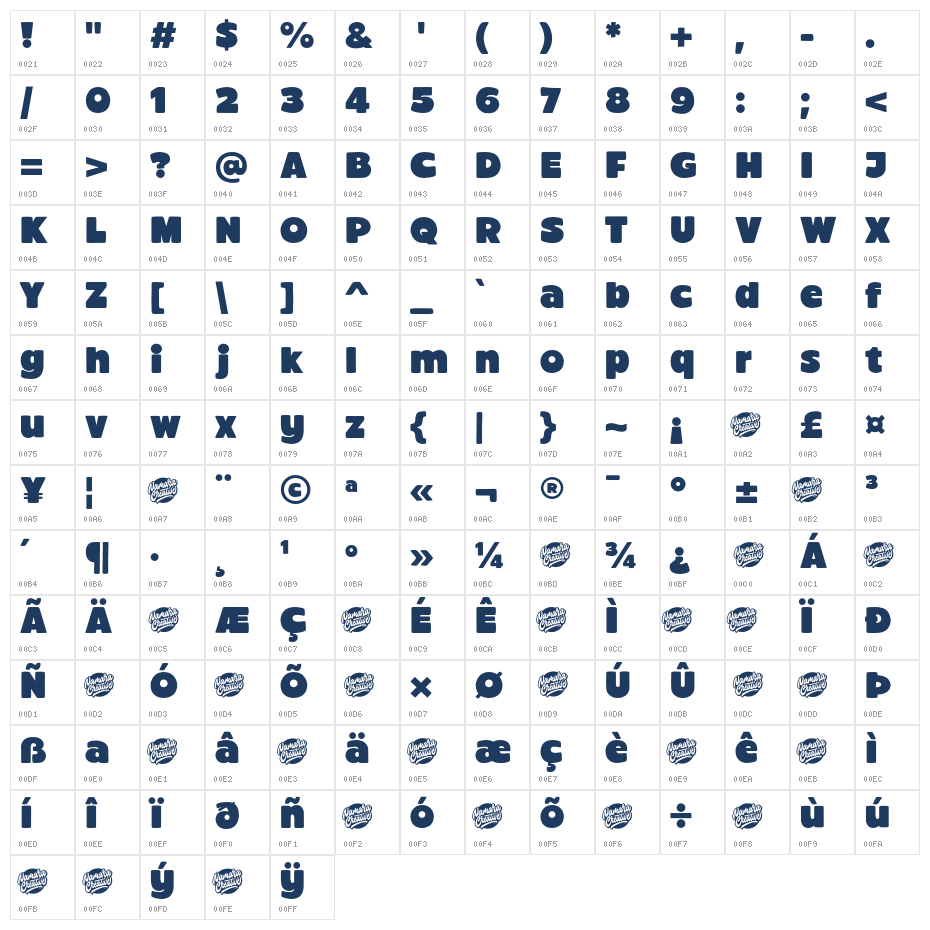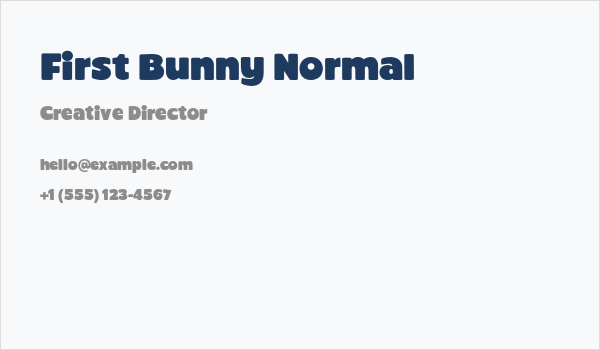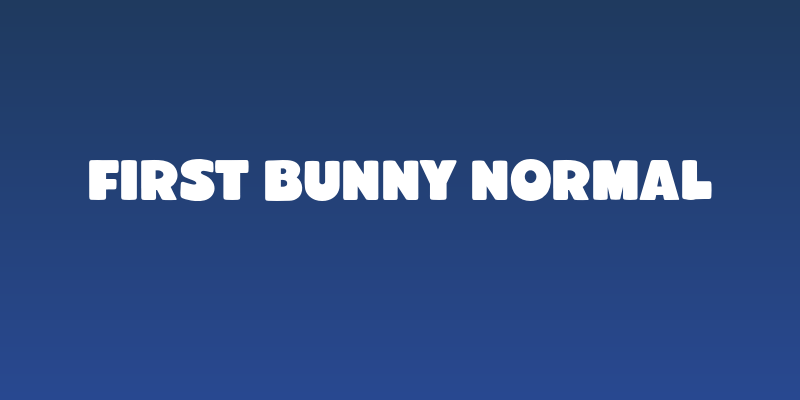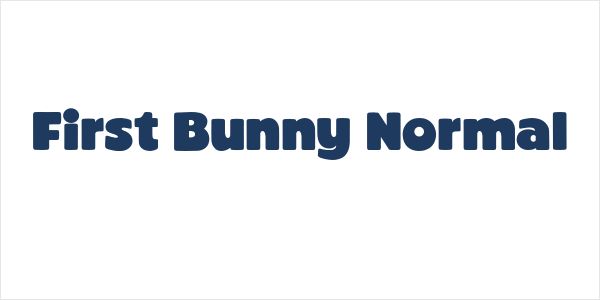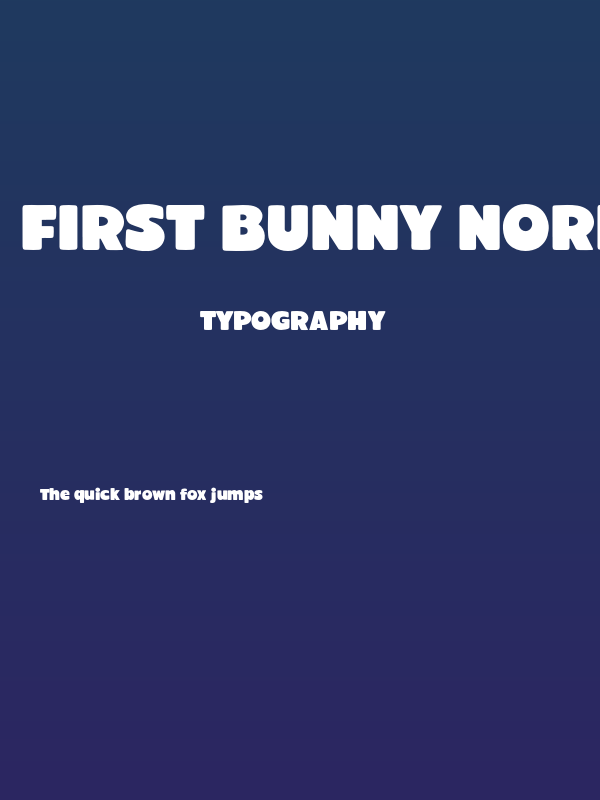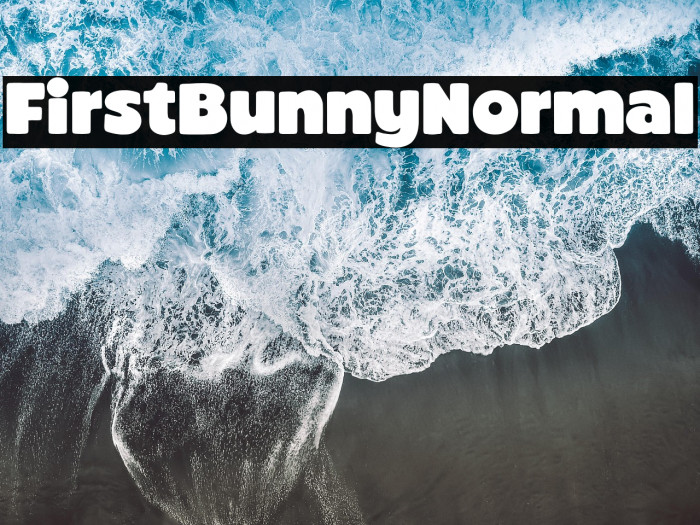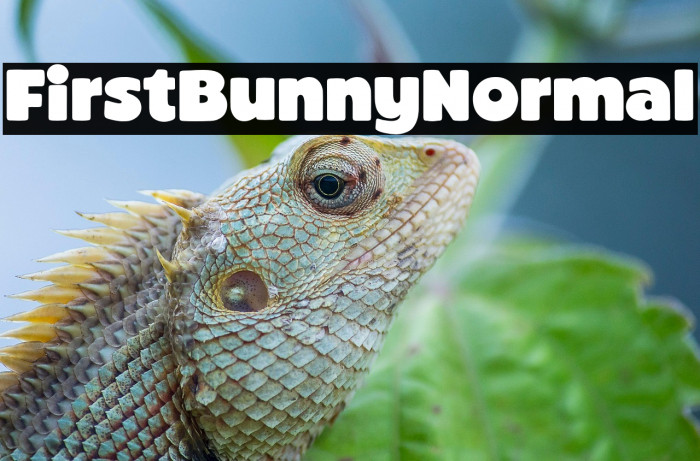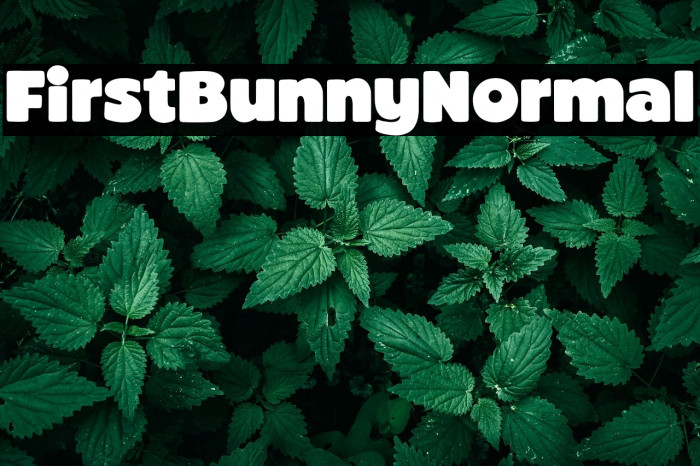
First Bunny Normal Font
First Bunny Normal Description
Bold, rounded, sans-serif font with a playful and chunky appearance.
| Overall Style | Playful, Modern |